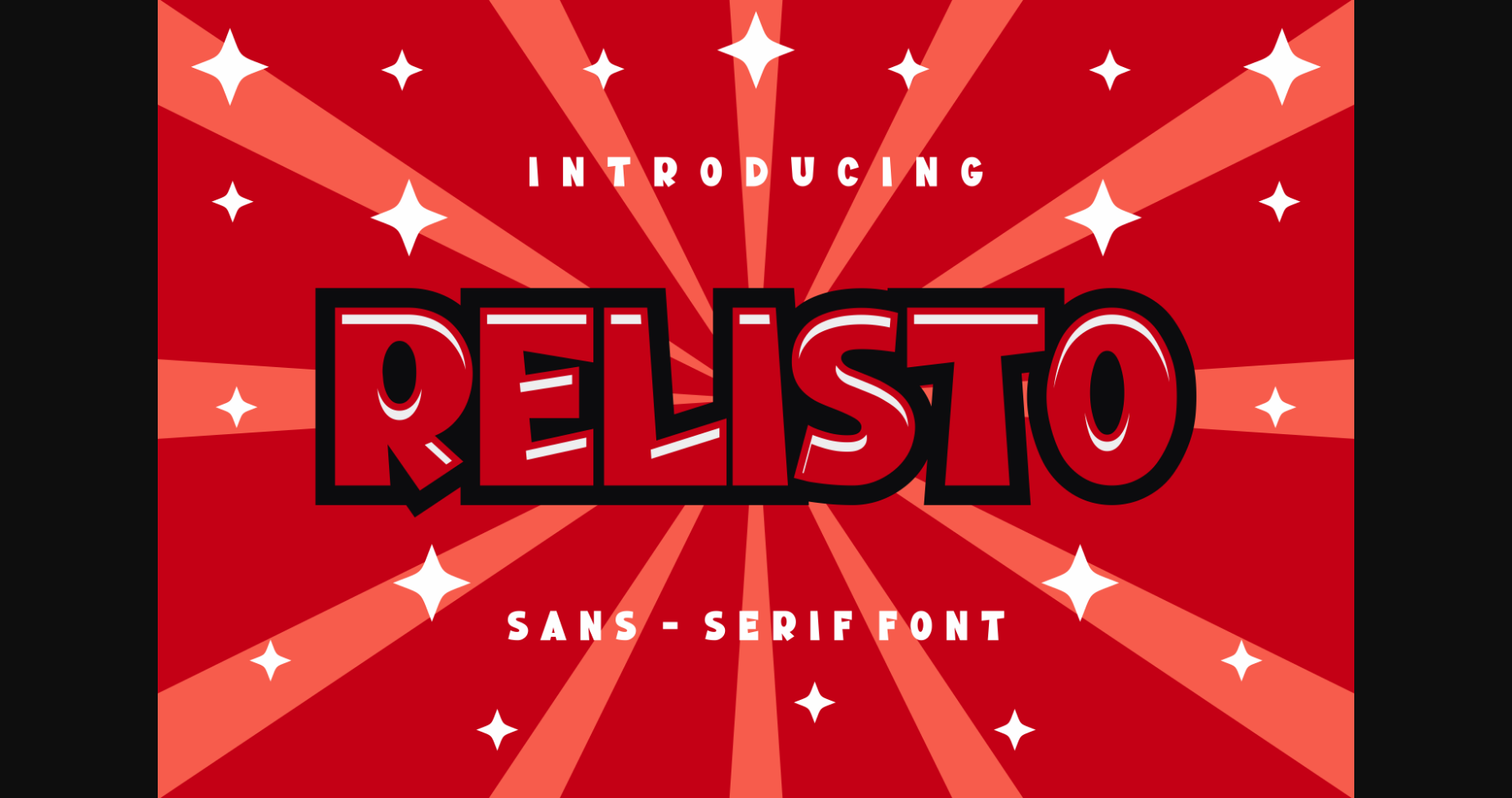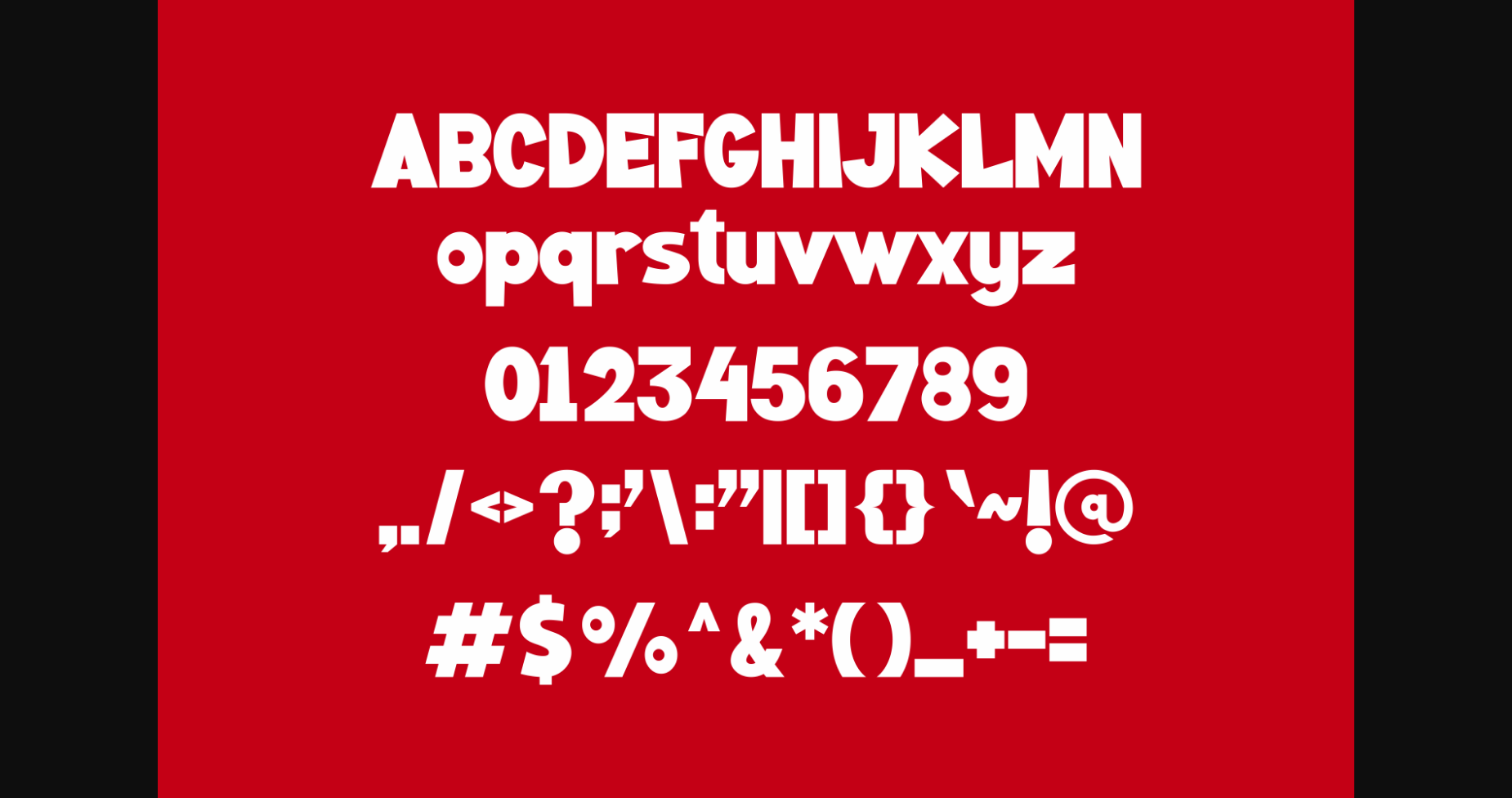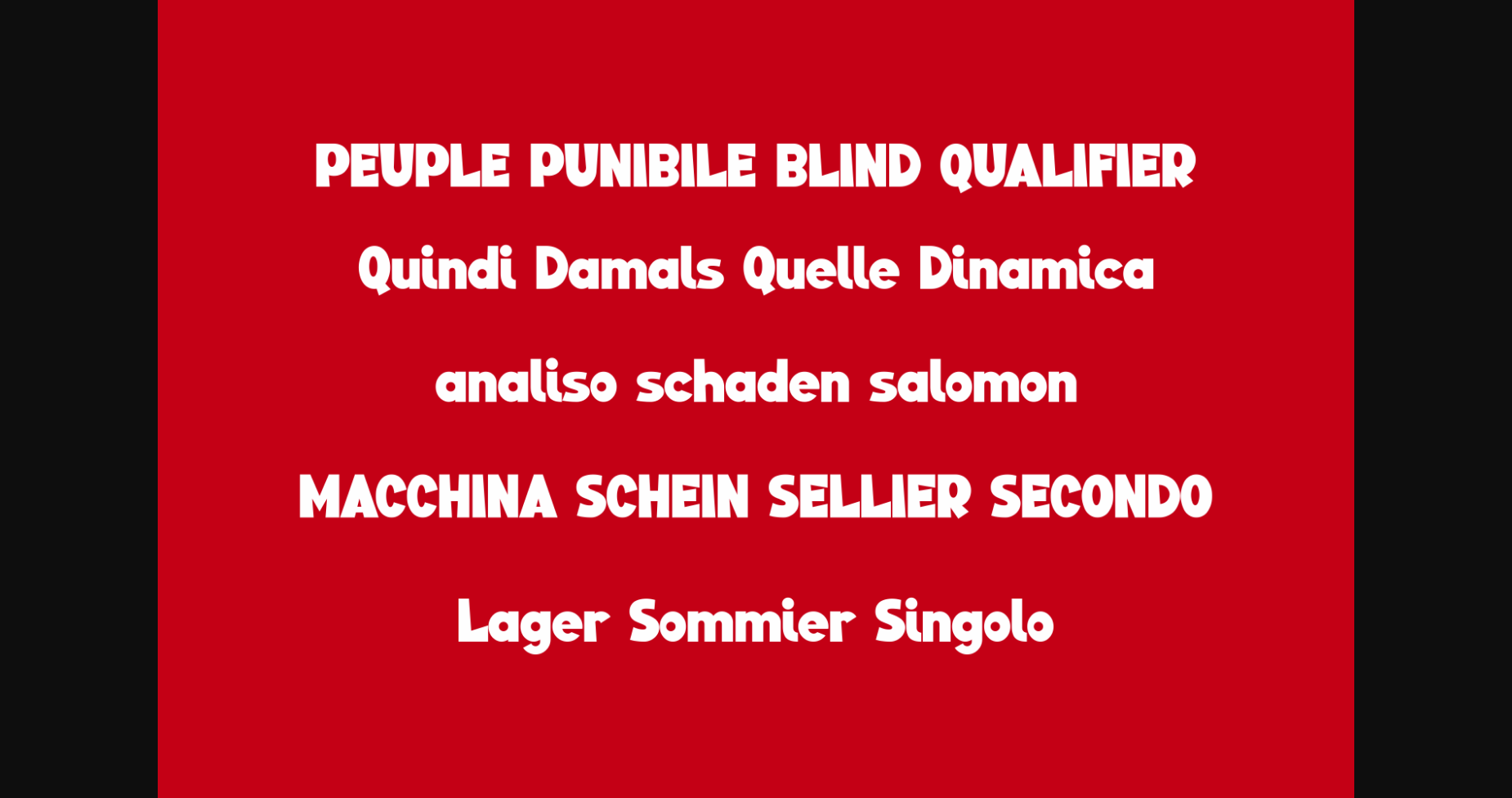
About Relisto Font
Add some instant pizzazz to your creative projects with this unique, sparkly font. Relisto’s glyphs are strong and bold while still maintaining a subtle playful vibe, making it the perfect typeface for a wide spectrum of projects!